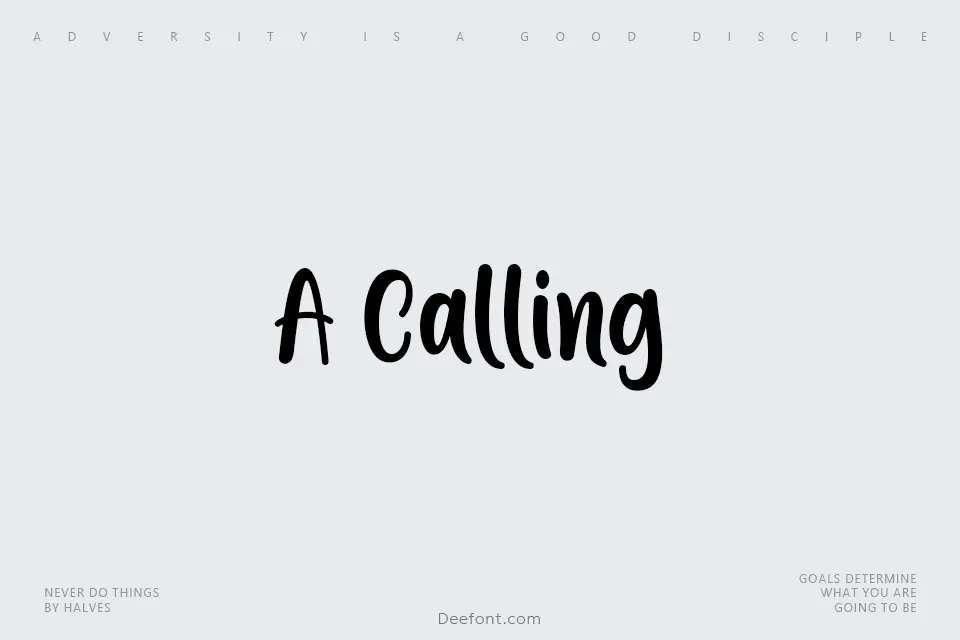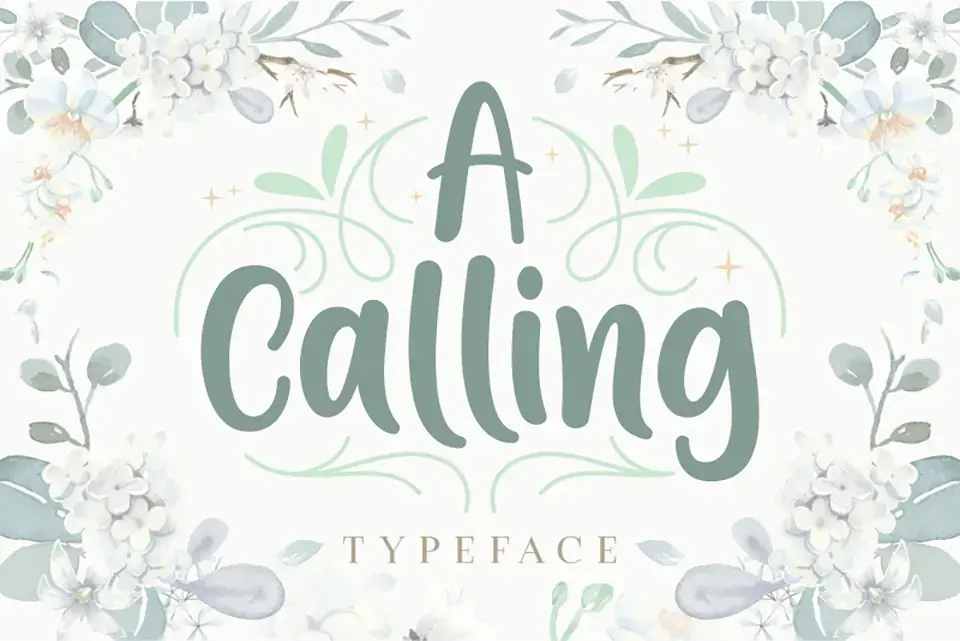
A Calling Font
A Calling Font is a beautiful script typeface with striking, elegant letterforms and graceful flourishes. This playful handwritten style excels in wedding invitations, logo design, and social media graphics. With excellent readability, A Calling Font brings warmth and personality to decorative titles, greeting cards, and branding projects. Perfect for designers seeking hand-drawn aesthetics with sophisticated charm.